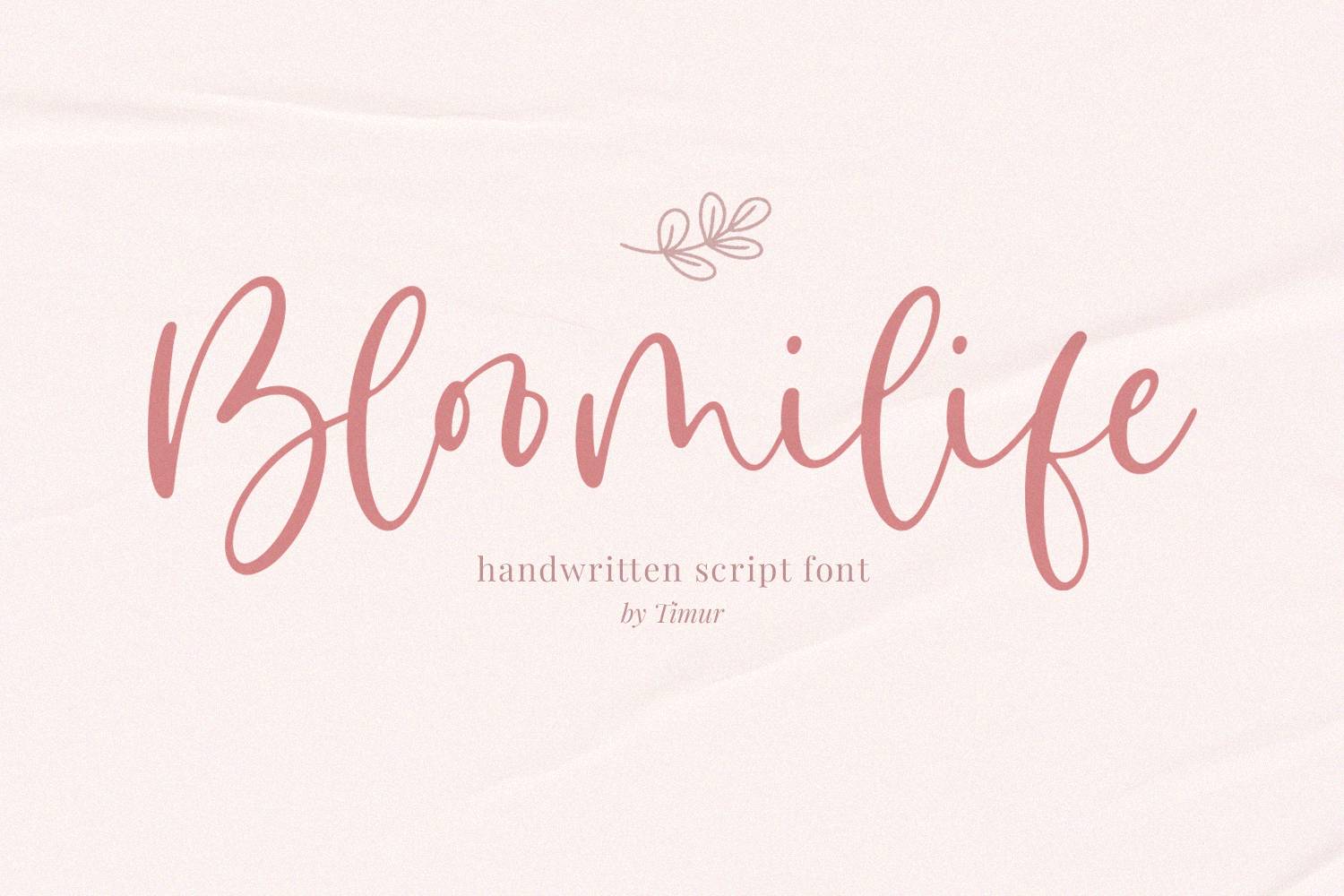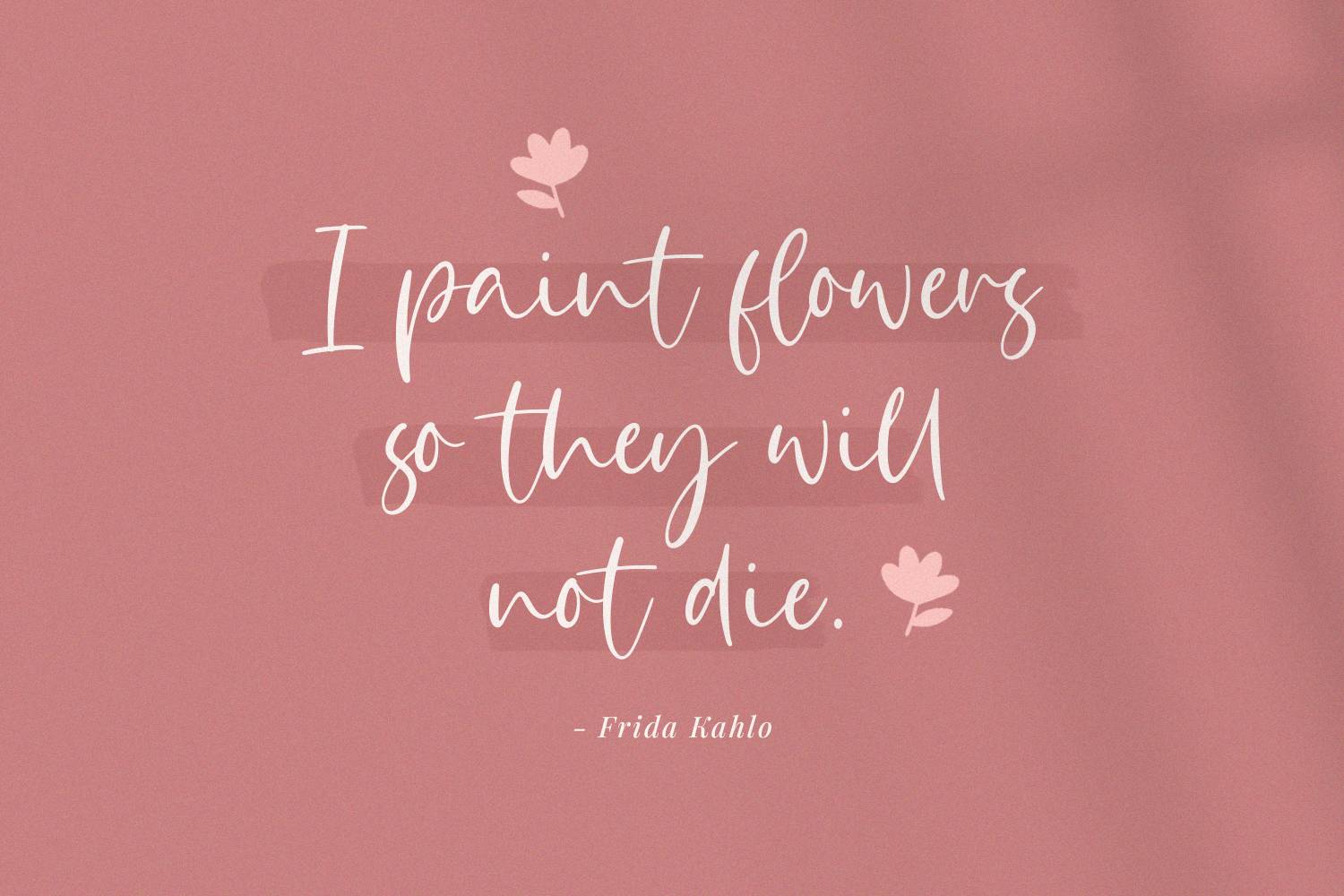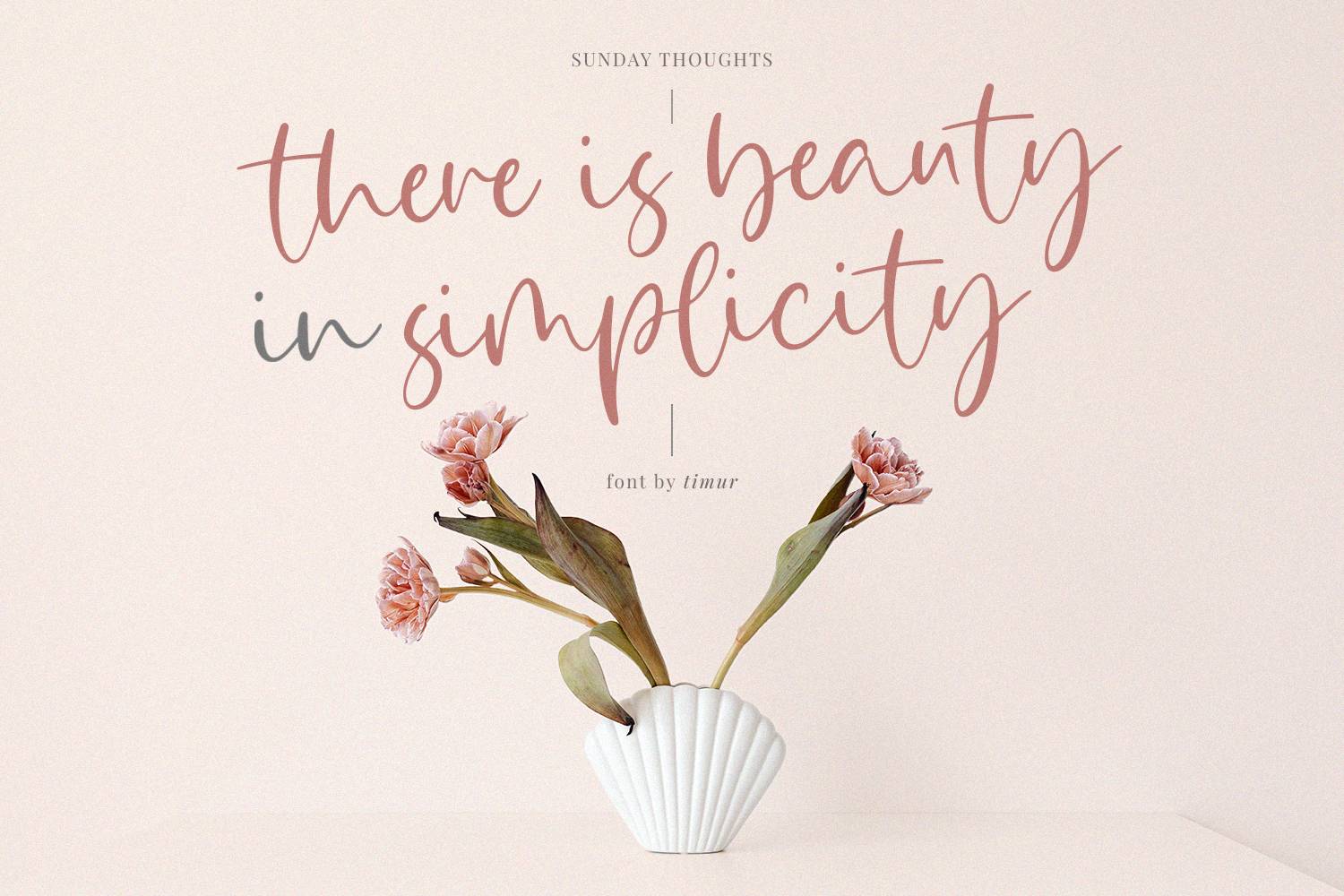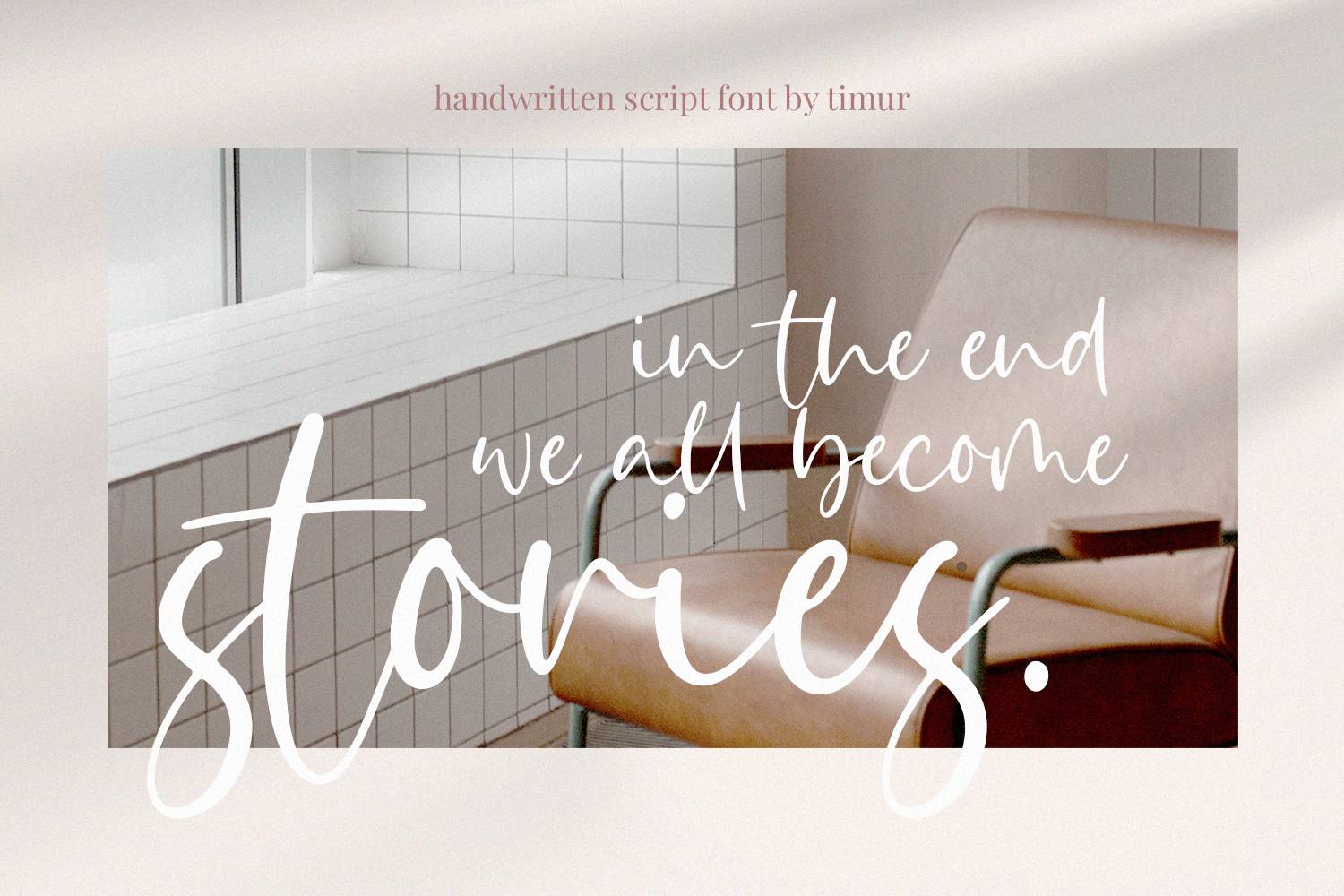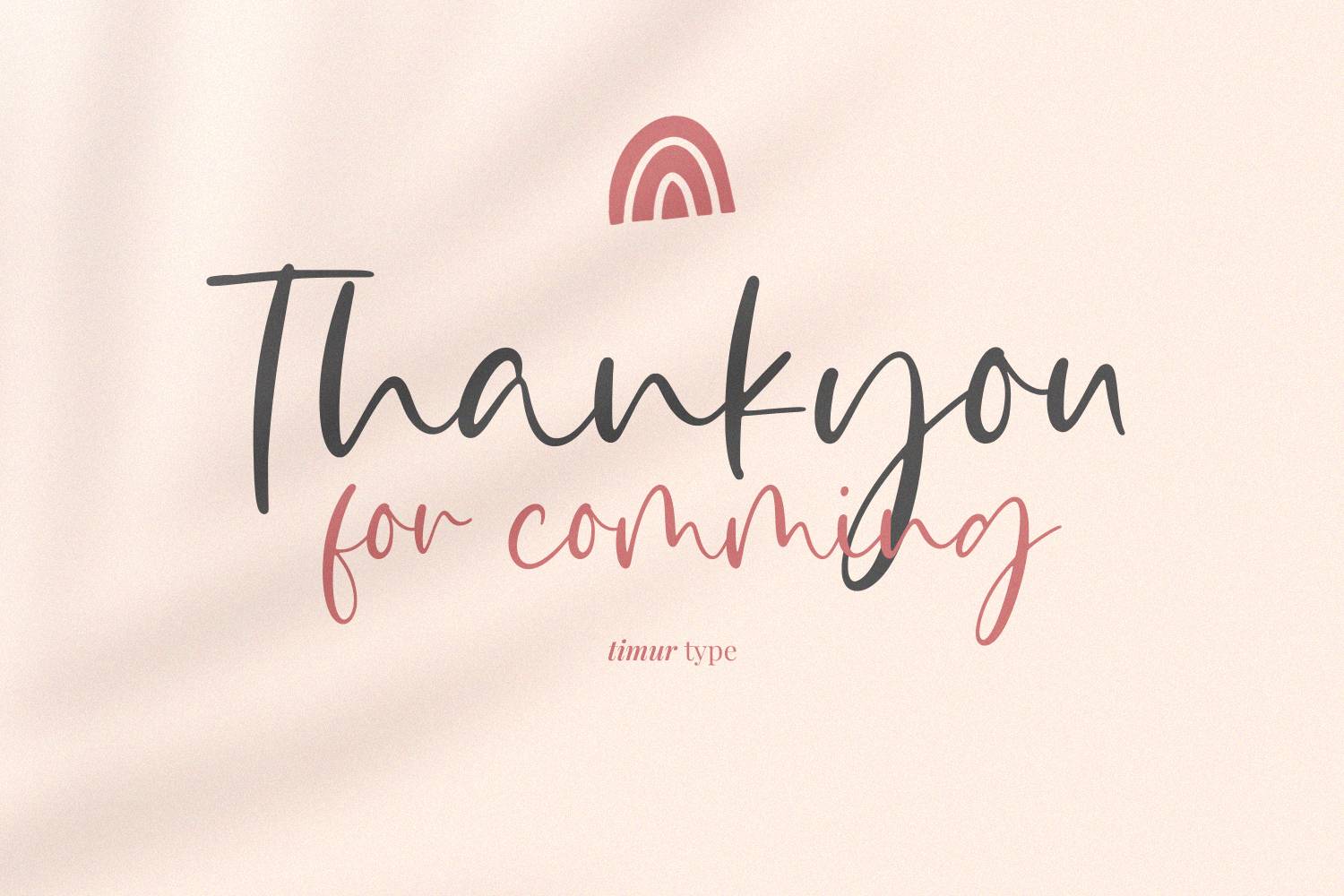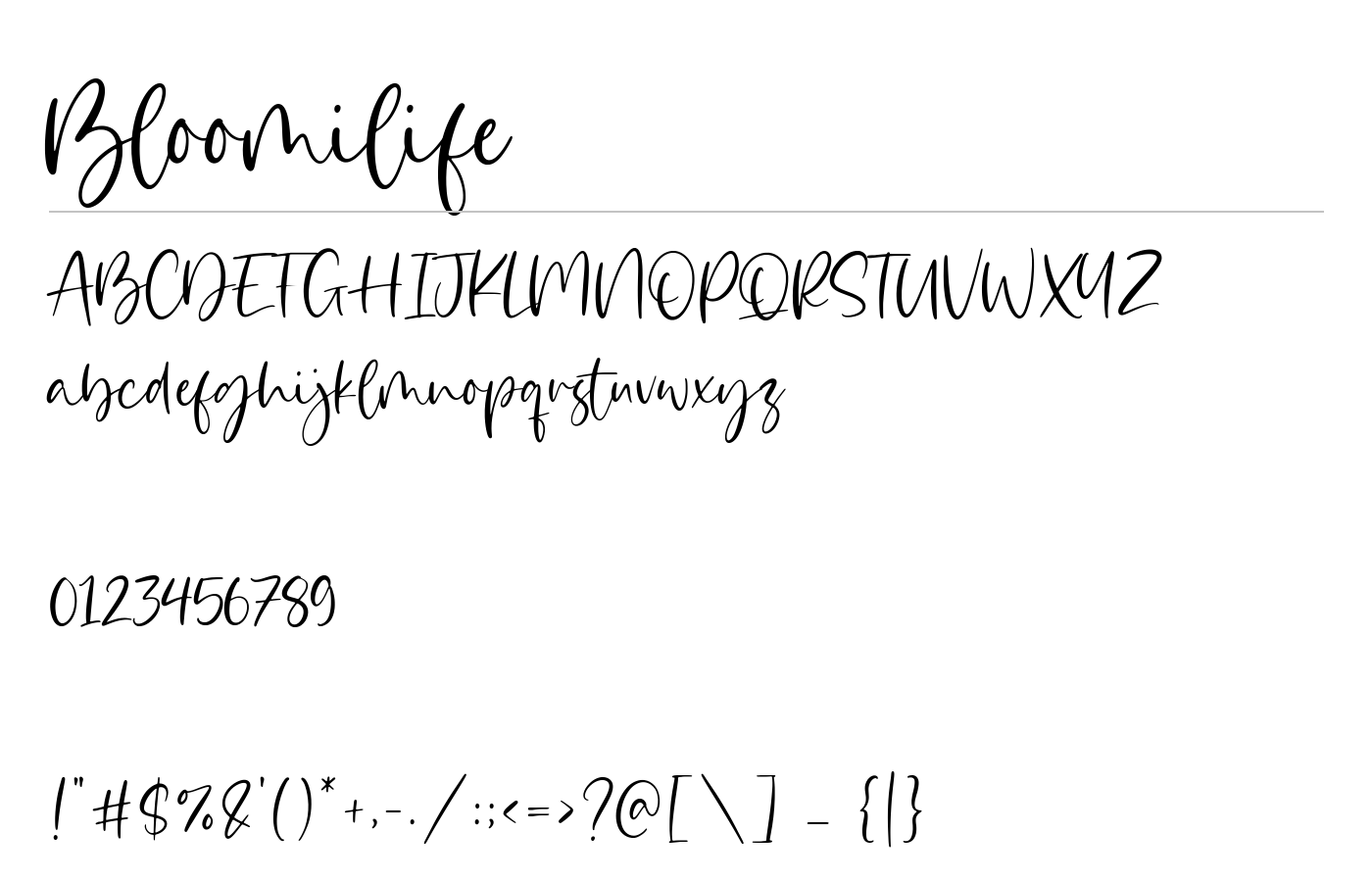
Bloomilife is a delicate and casual script font with a hand-drawn, organic feel characterized by its tall, slender letterforms and smooth, flowing strokes. This font exudes a friendly and approachable personality, making it perfect for lifestyle branding, invitations, and creative projects that aim for warmth and elegance without being overly formal. Its airy spacing and playful curves lend a modern yet personal touch ideal for logos, social media, and packaging where a natural handwritten style is desired.
Bloomilife Font
About Bloomilife Font
| Font family | Bloomilife Font |
| Designer | Timur Type |